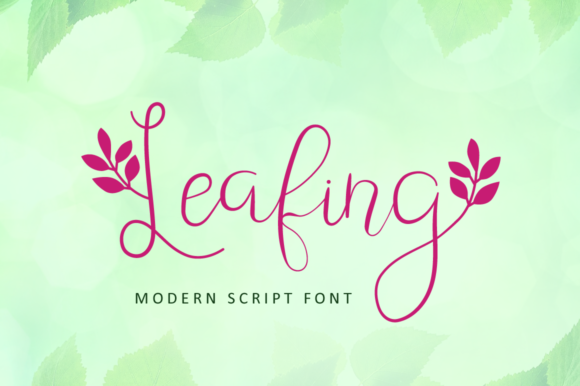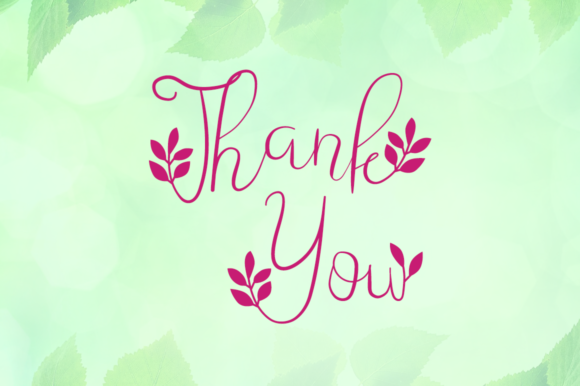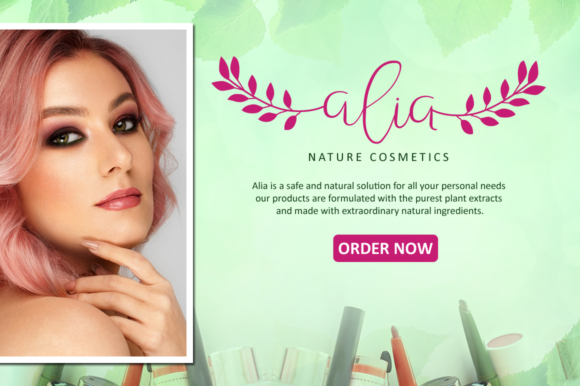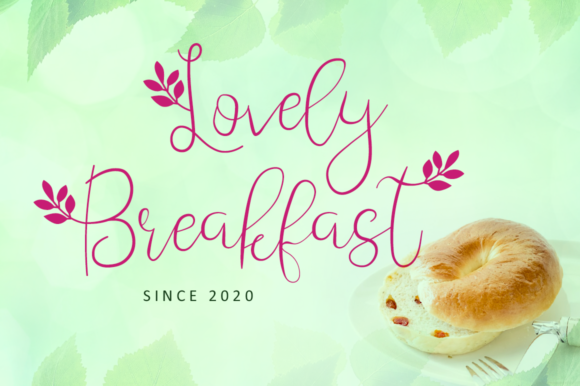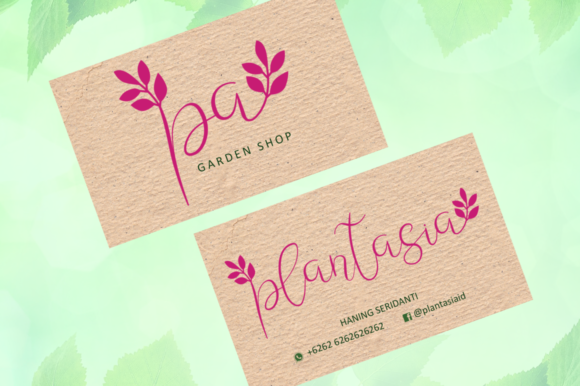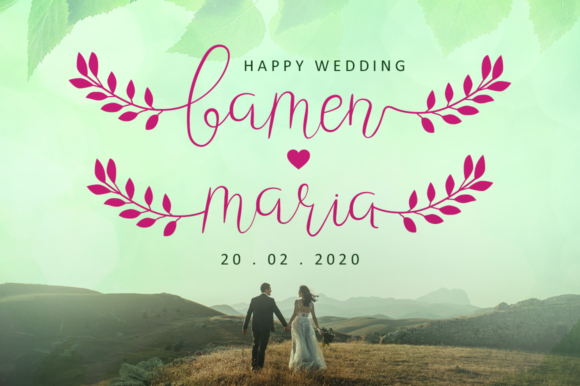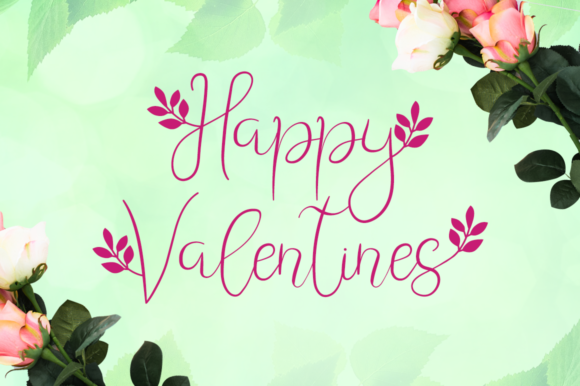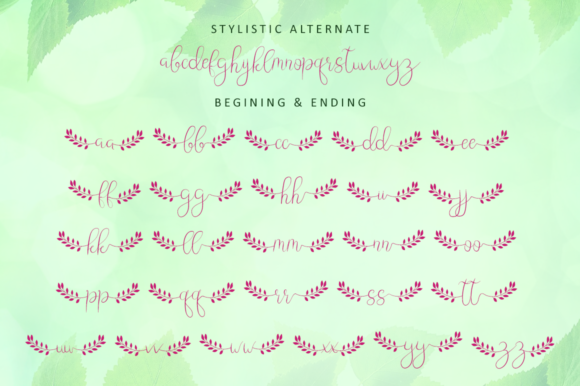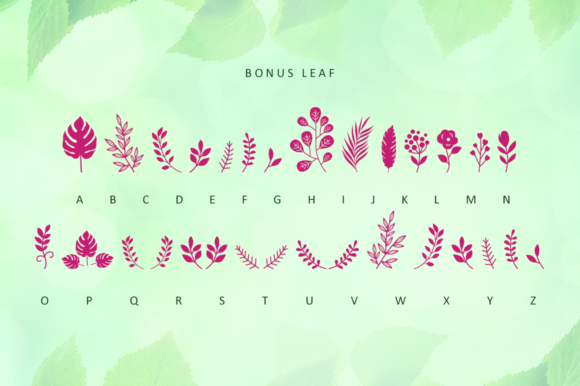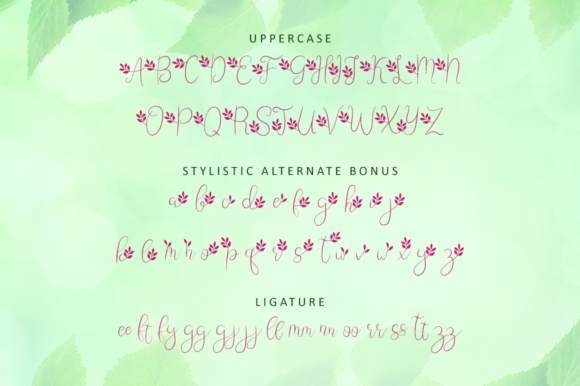
Leafing Font
Leafing is a modern script font mix featuring leaf and florals with a natural vibe. The script is suitable for a wide range of products, including headlines, logotype, wedding invitations, Valentine’s Day, branding, packaging, advertising, watermark, and much more!
This font is PUA encoded which means you can access all of the magical glyphs and swashes with ease! It also features a wealth of special features including alternate glyphs and ligatures.